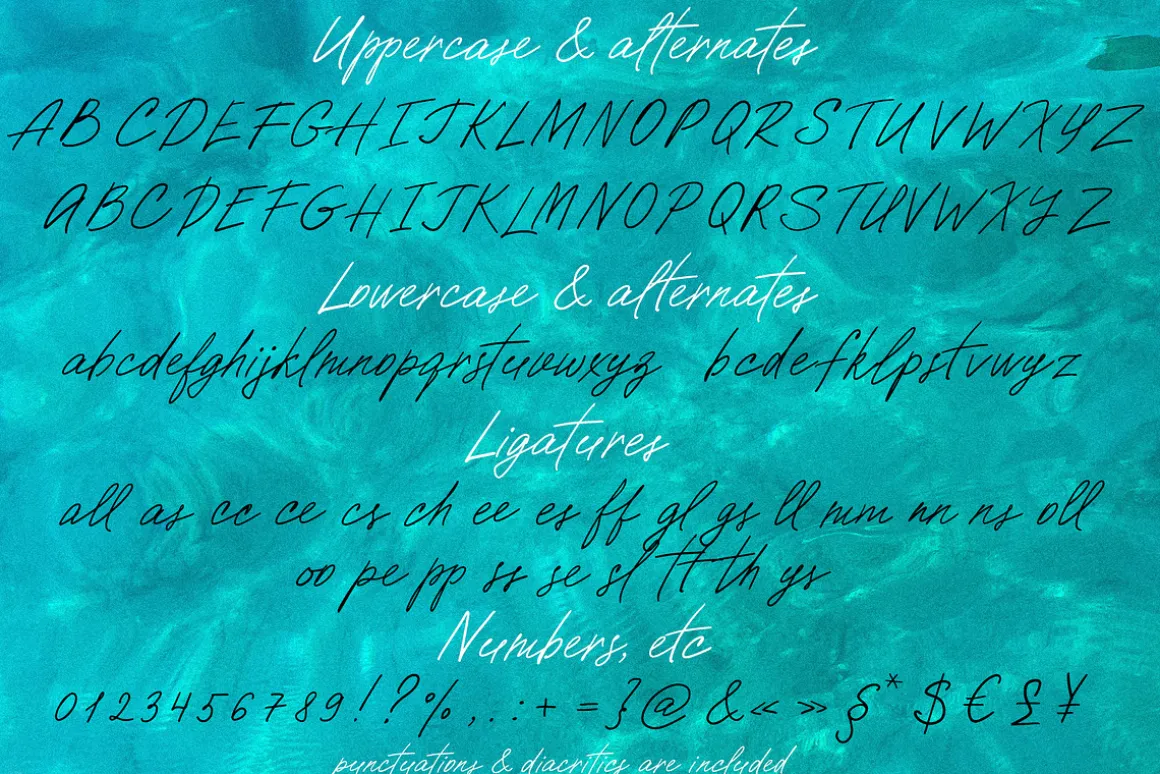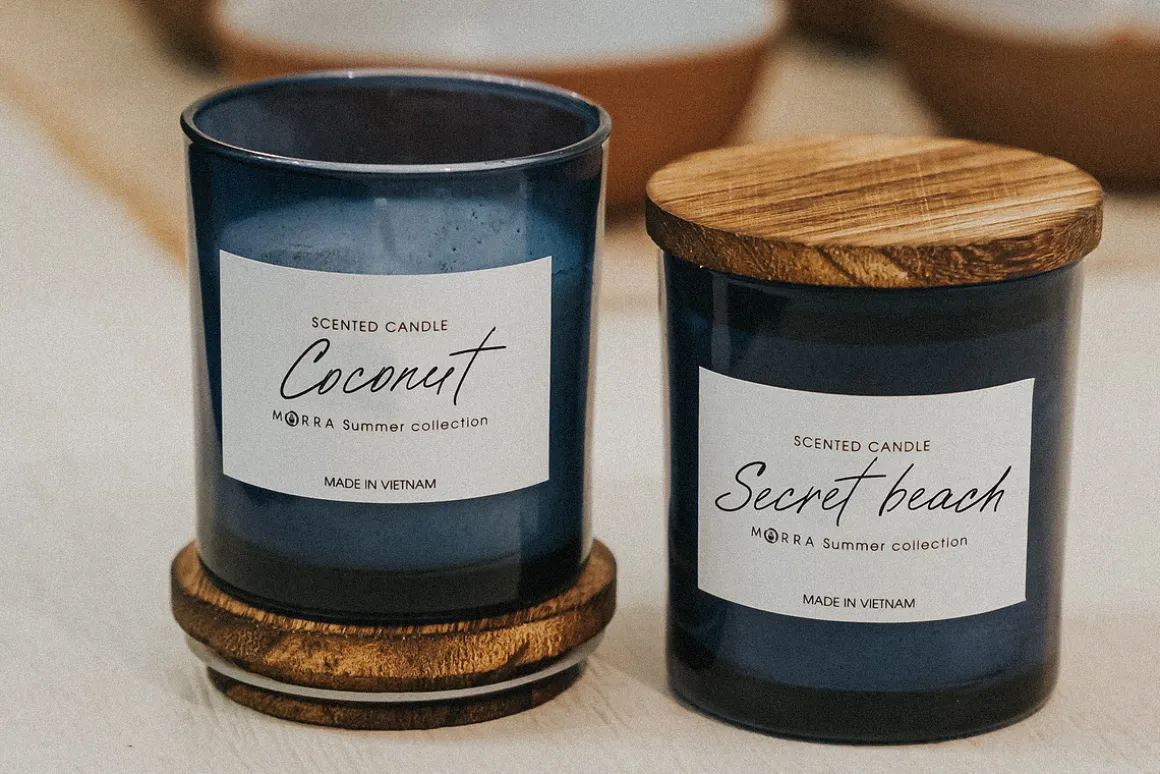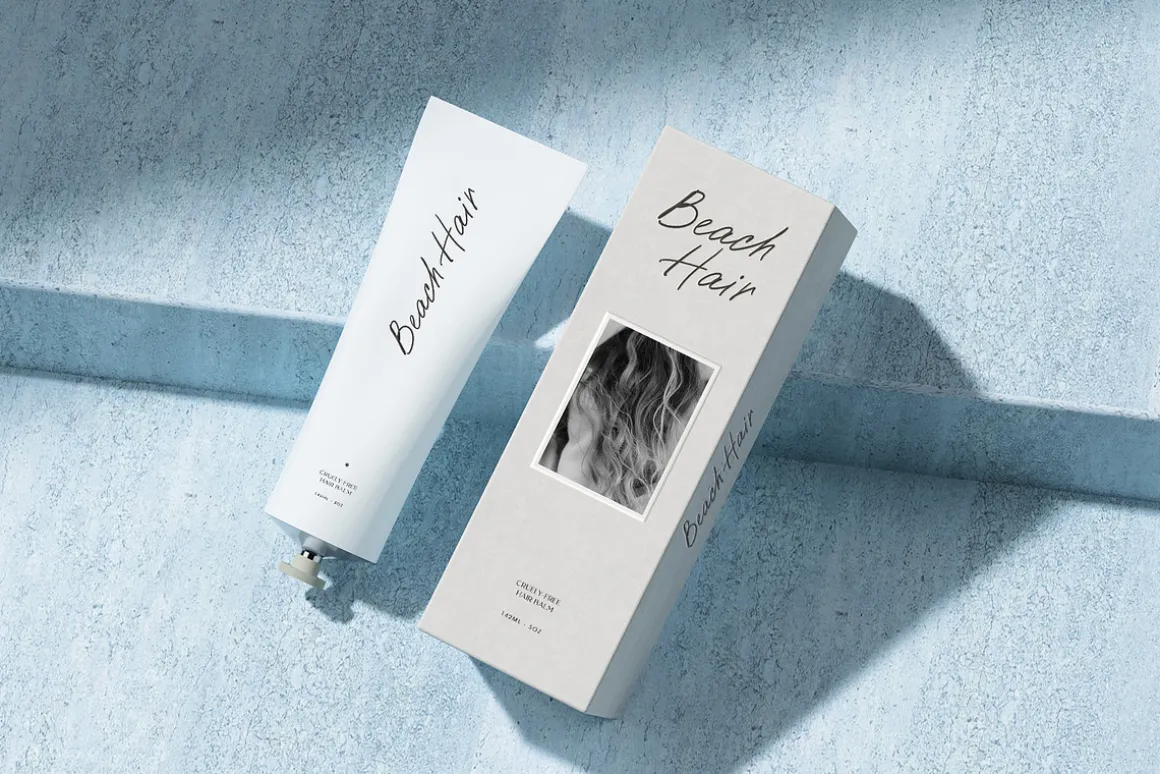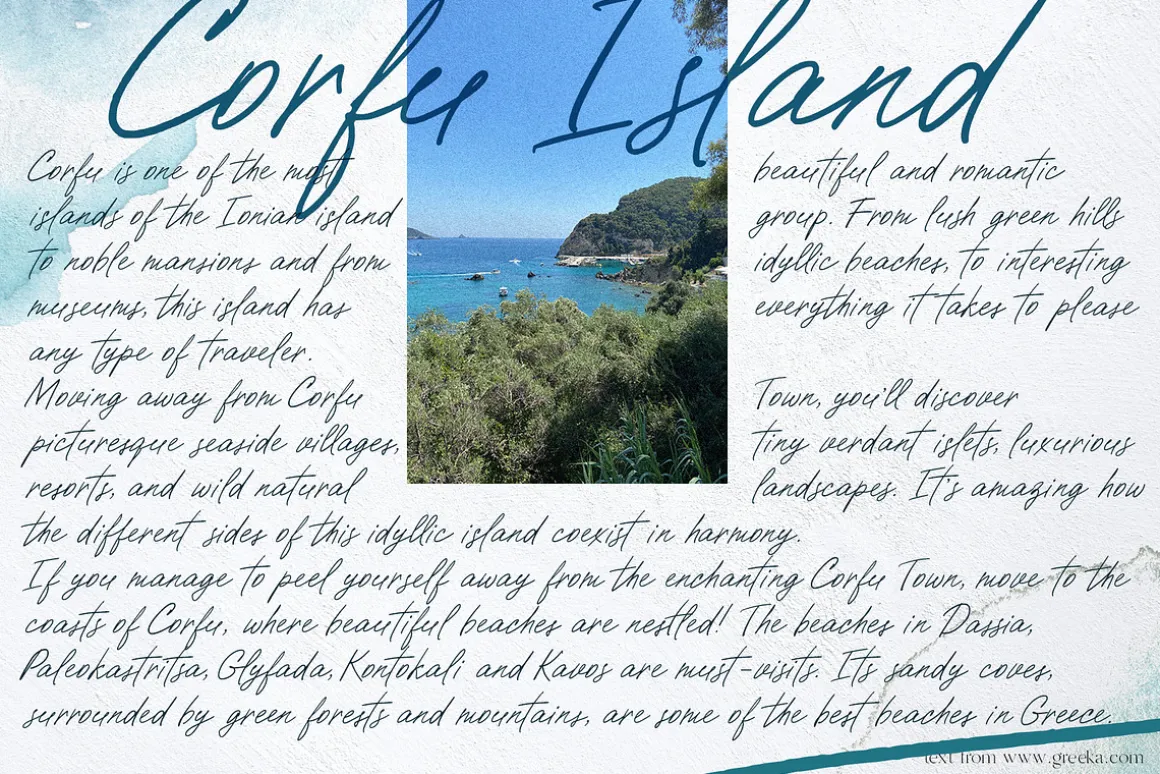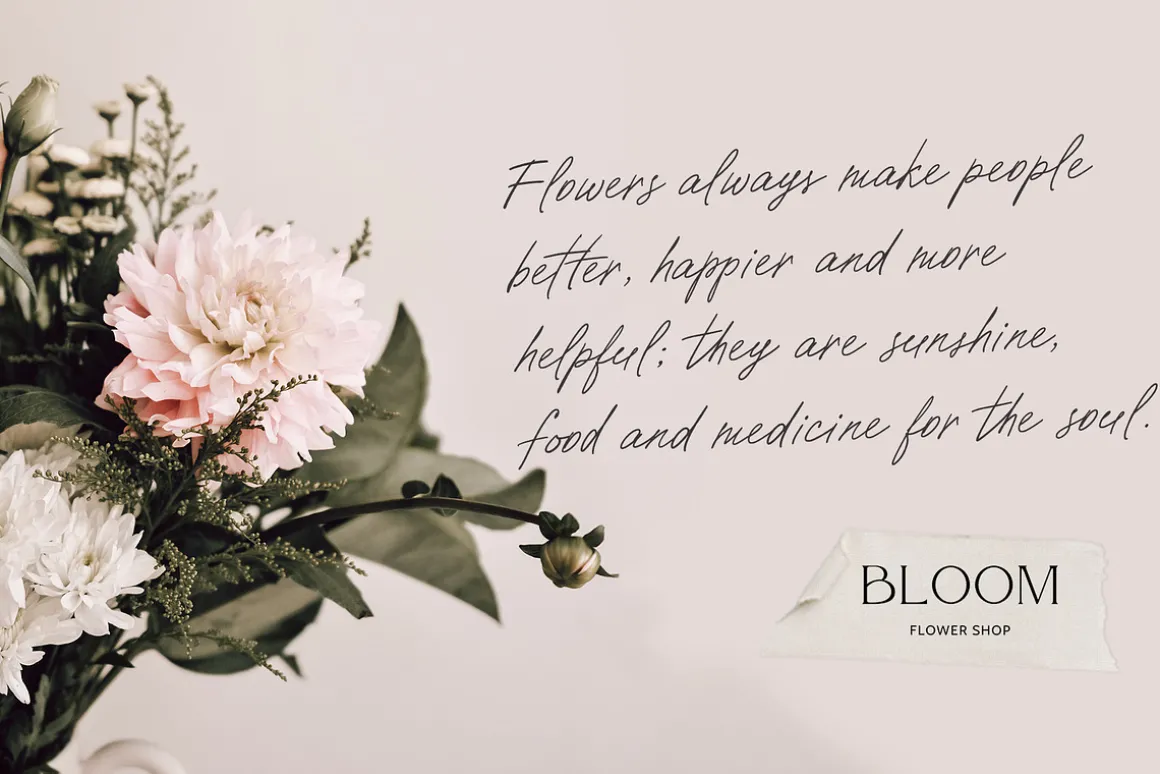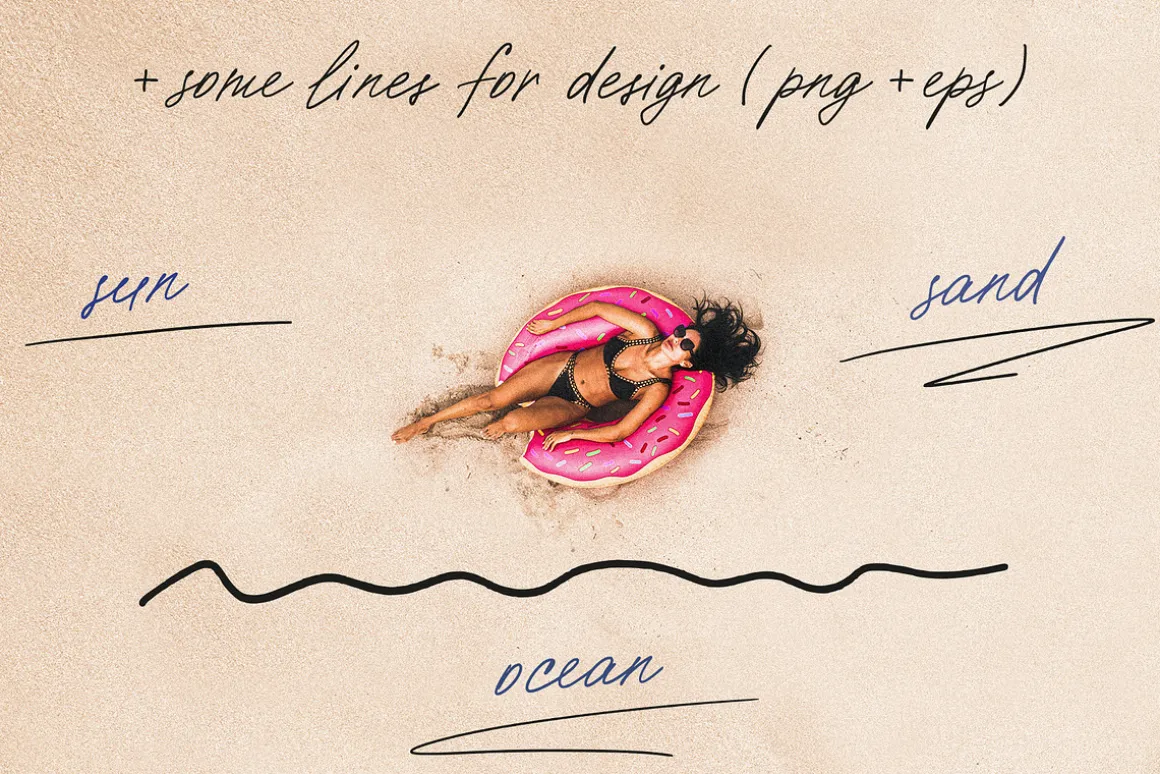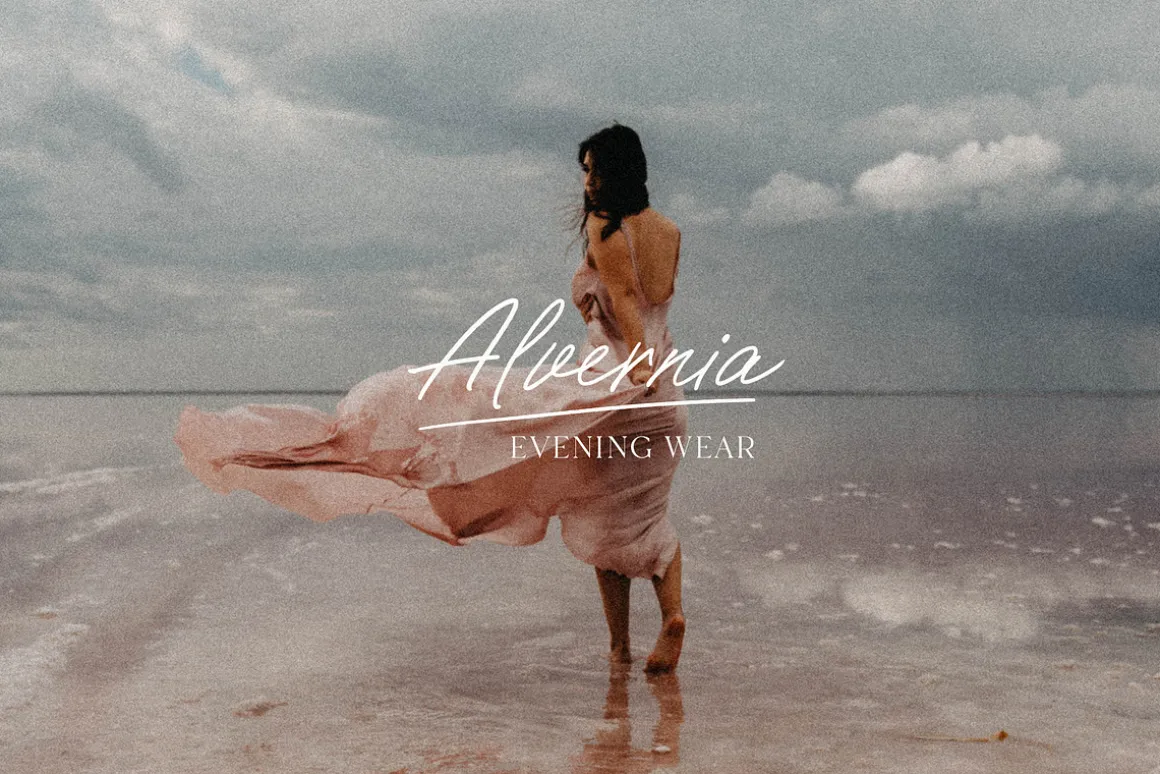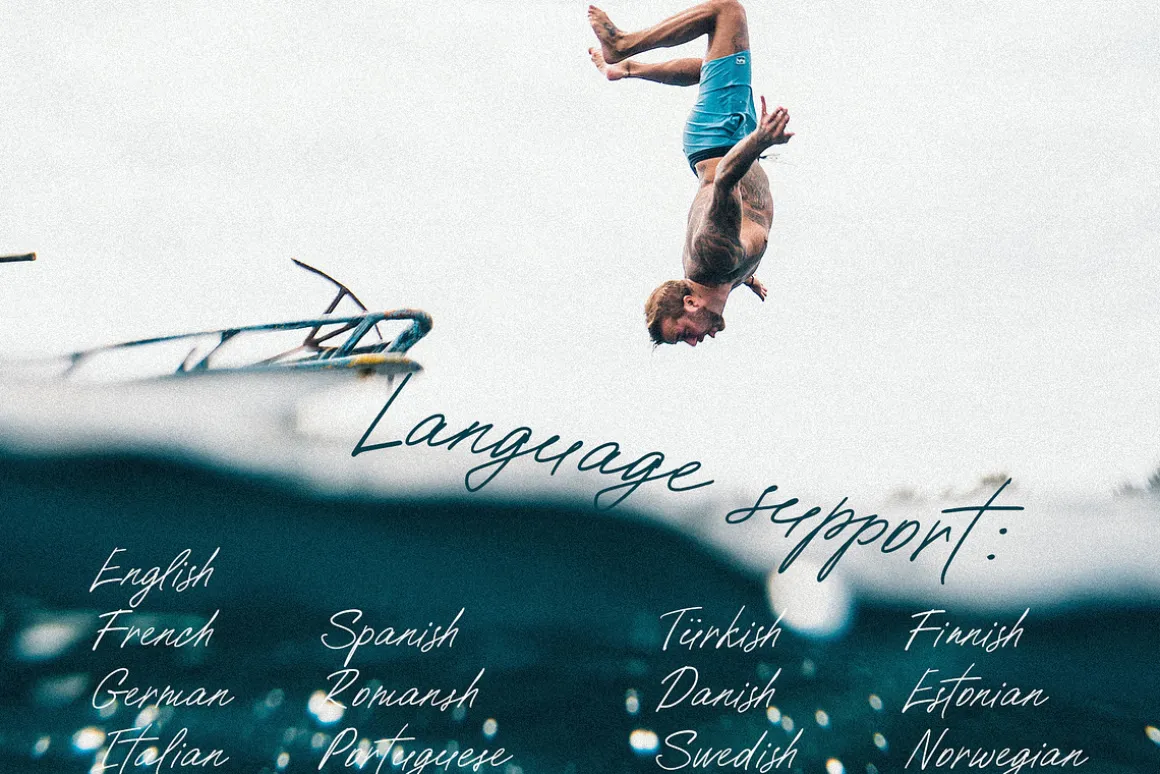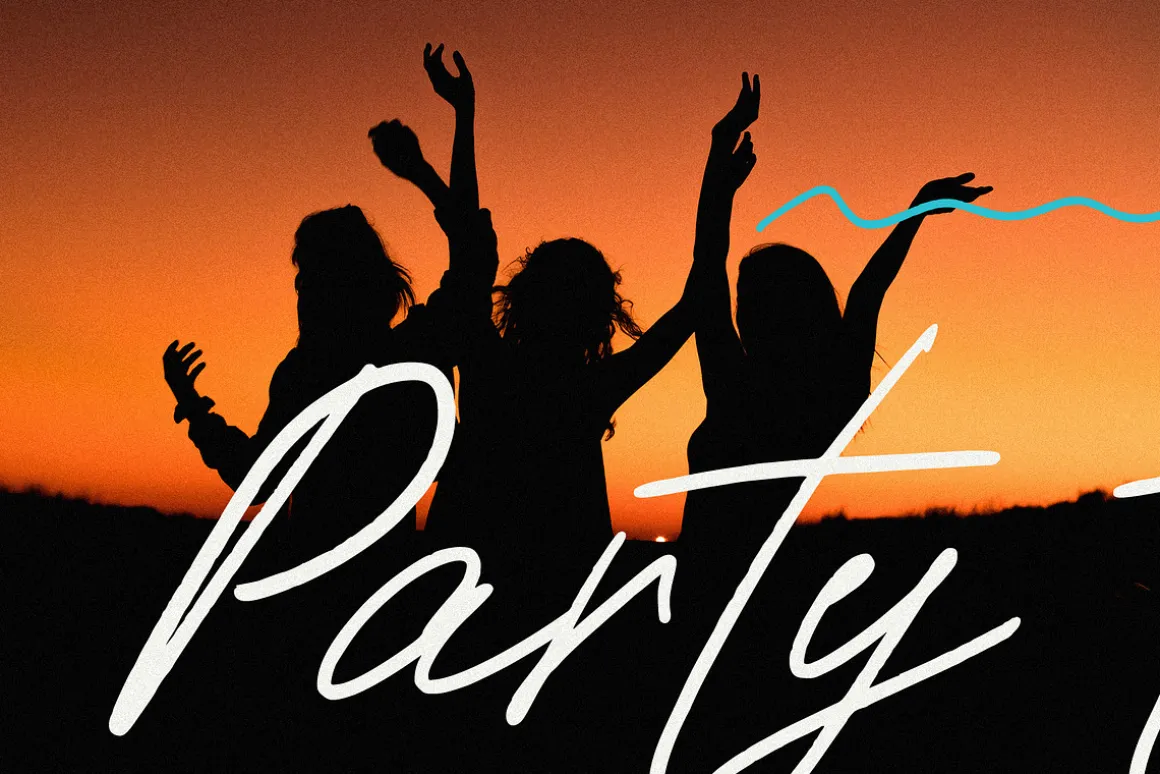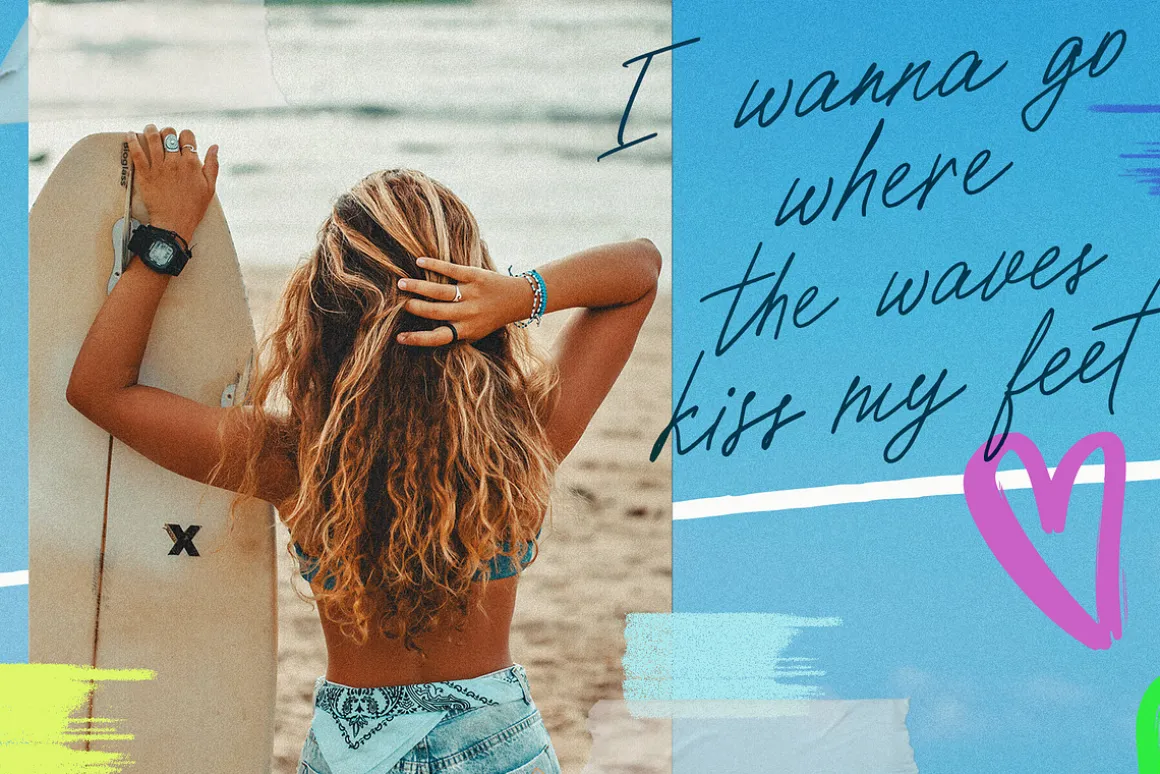
Paradise beach is a handwritten modern textured script font. Paradise beach typeface includes stylistic alternates for uppercases & lowercases, ligatures, lines illustrations. The font is suitable for the design on the different themes includes logo design, packaging.
Paradise beach has extensive language support, it includes English, French, German, Italian, Spanish, Portuguese, Danish, Norwegian, Swedish, Finnish, Estonian, Romansh, Turkish.Need to know if your language is supported? Type any words in the text box below and see if all characters you need are there.